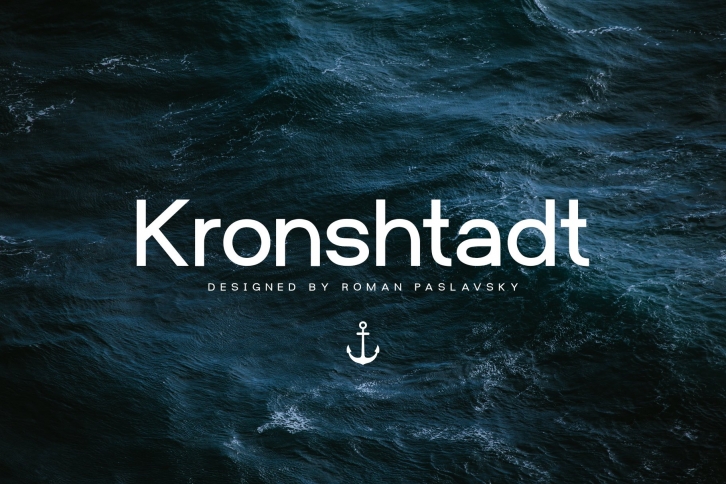
Kronshtadt is a beautiful font that was designed by seveniwe. It's a great choice for designers and creatives who need such a font. It was released on July 15, 2020 and the file size is 9.54 MB. Kronshtadt may give a more youthful, expressive and casual look to your project. It is a very beautiful, refined, elegant, and high-quality font.